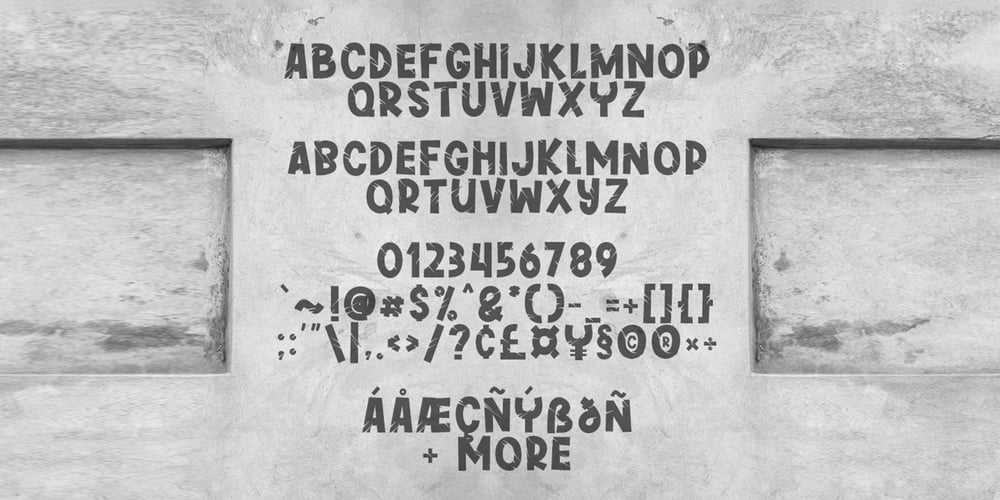
Greywall Font Family was designed by Syaf Rizal and published by Khurasan. Greywall contains 1 styles and family package options. Introducing Greywall, a bold stretch sans serif font. Greywall it perfect for posters, logos, magazines, covers, banners, t-shirts and headers, or even large-scale artwork.